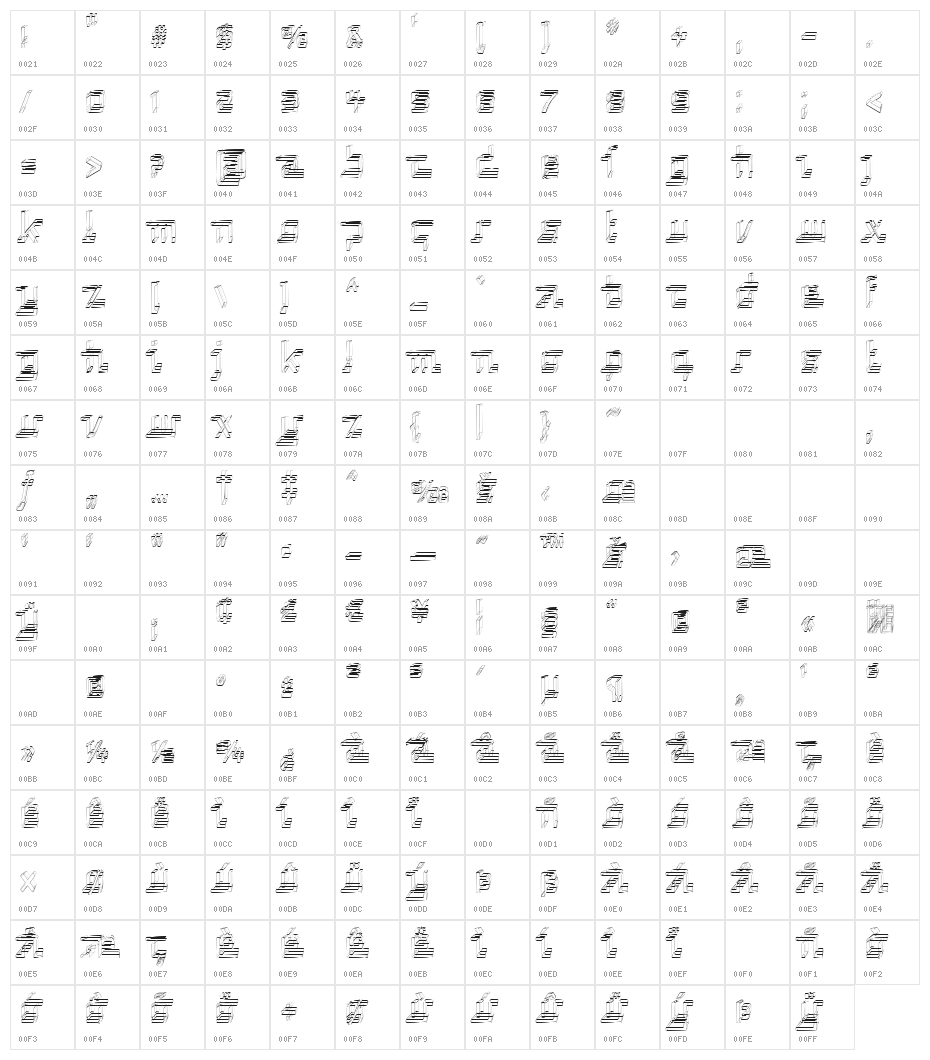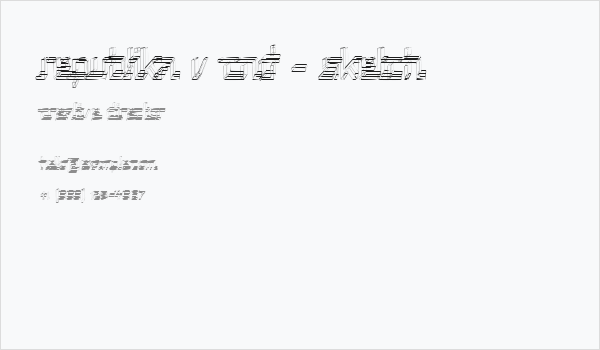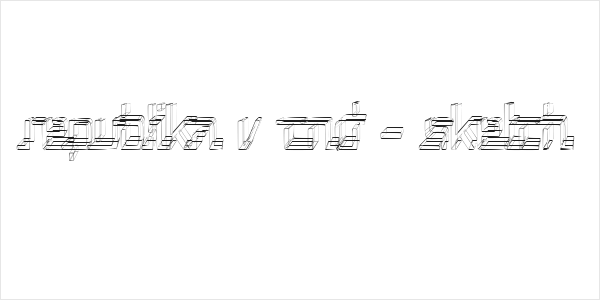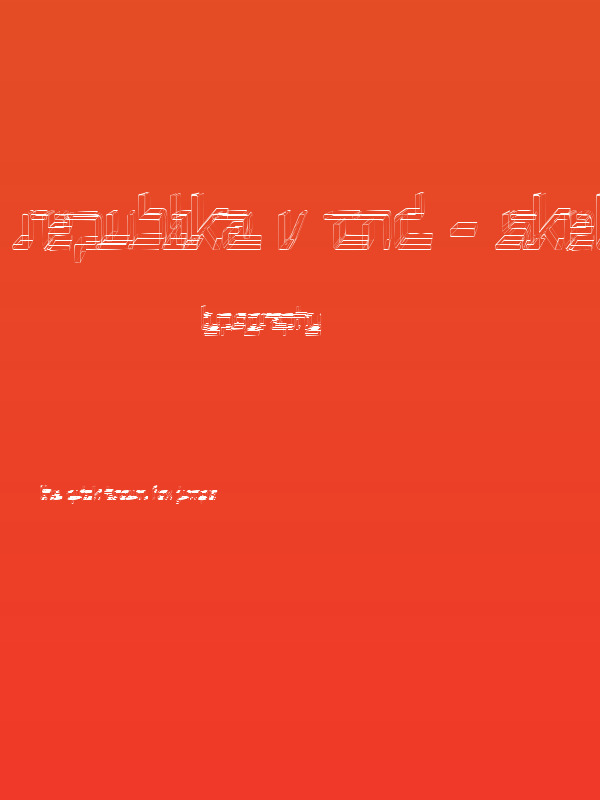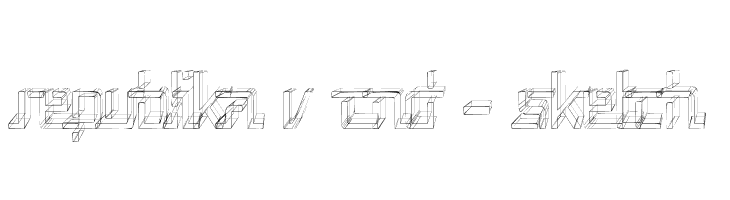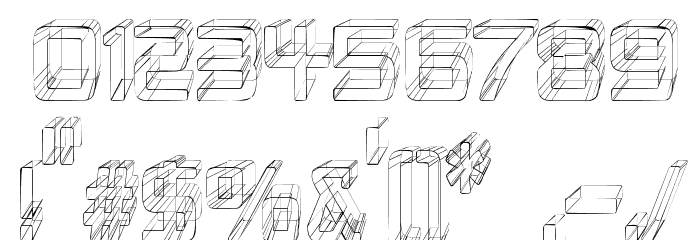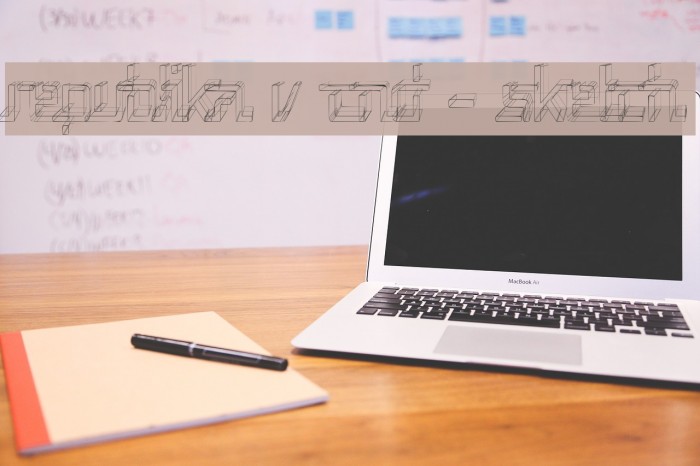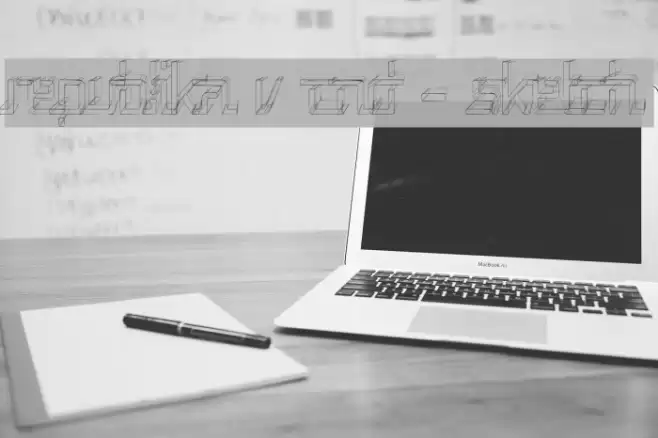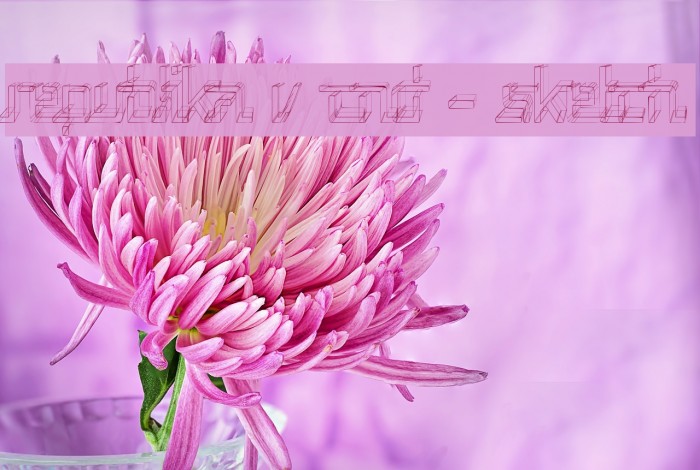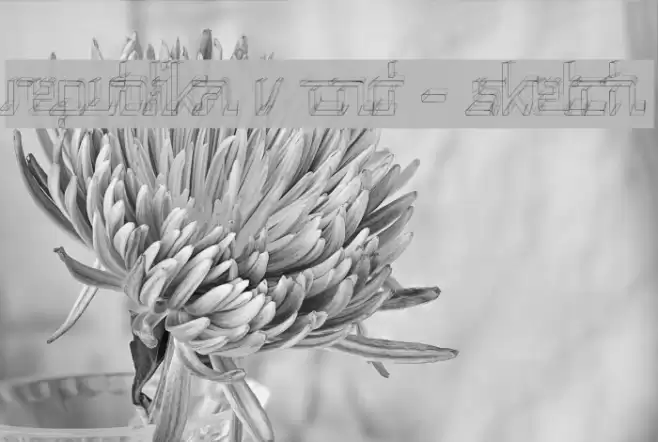
Republika V Cnd - Sketch Font
Republika V Cnd - Sketch Description
This font features a unique, sketch-like design with a three-dimensional effect. Each character is constructed with multiple overlapping lines, creating a sense of depth and complexity. The geometric shapes are consistent throughout, giving it a cohesive and structured appearance. The font maintains a modern and futuristic aesthetic, with angular edges and a technical feel. It is highly stylized, making it suitable for creative and artistic projects that require a distinctive and eye-catching typeface.
| Use Case | Logos, Headlines, Artistic Displays |
| Proposed Projects | Ideal for graphic design projects, tech-themed posters, futuristic branding, and artistic displays. |